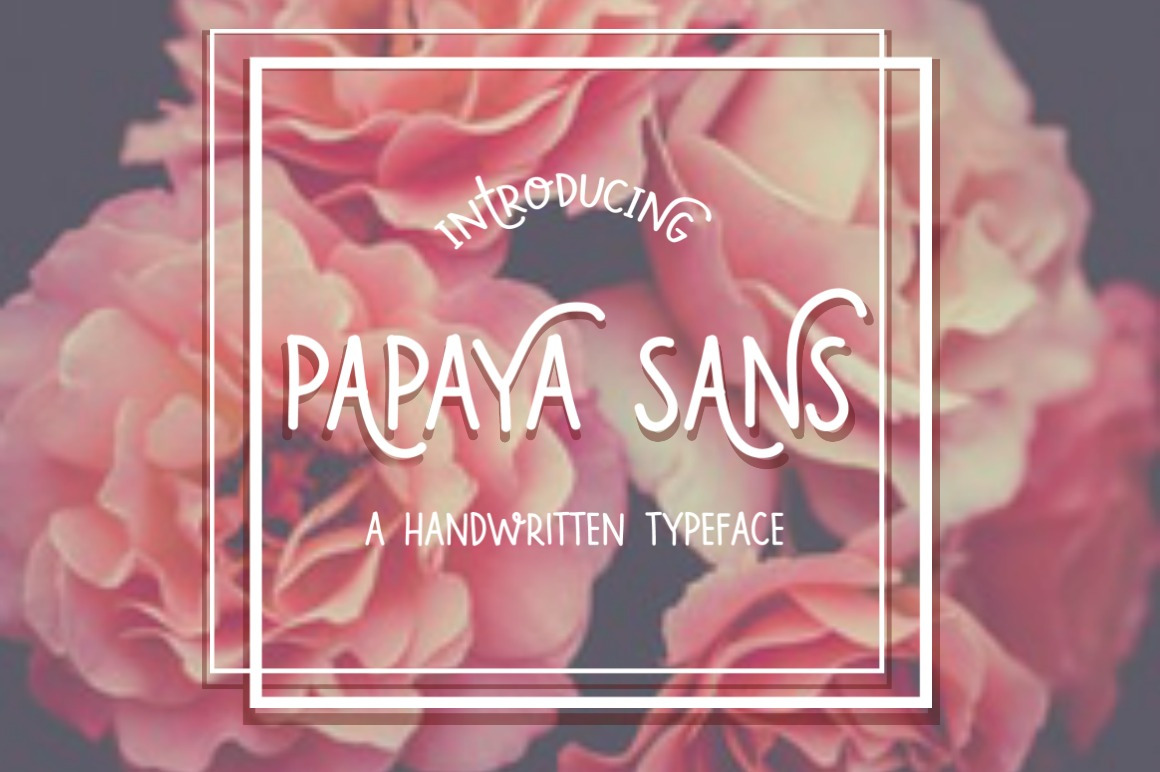
Papaya Sans is a unique and versatile font that is perfect for so many designs! You can keep it simple with an all-caps look or add some spunk by mixing and matching caps and lowercase!